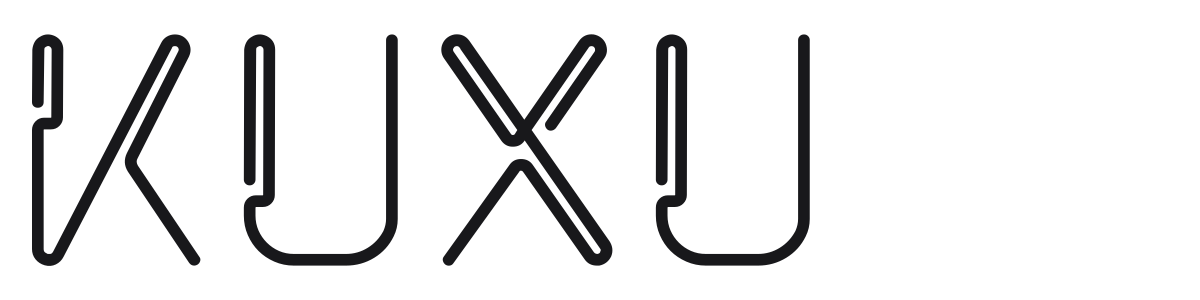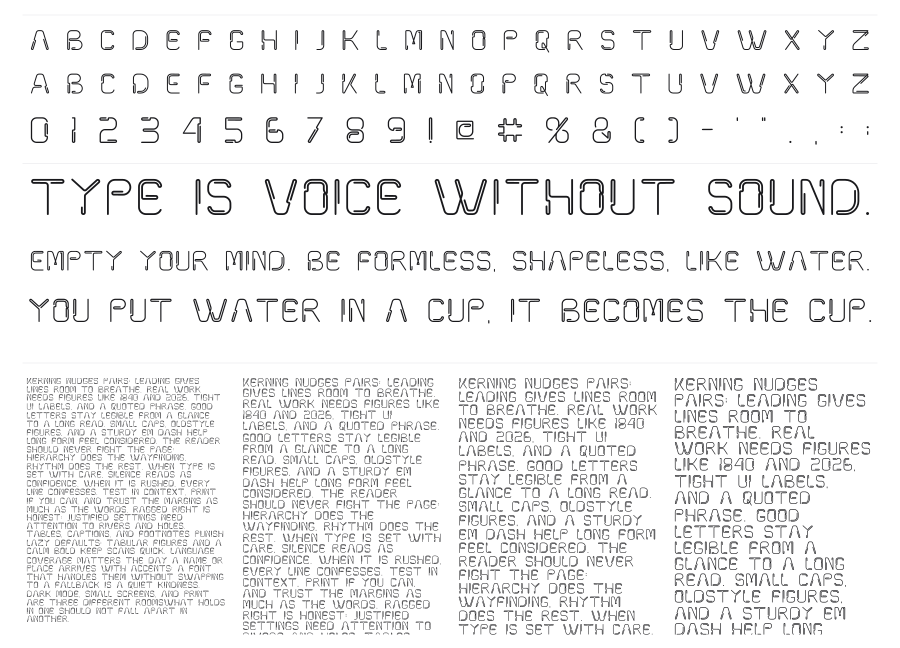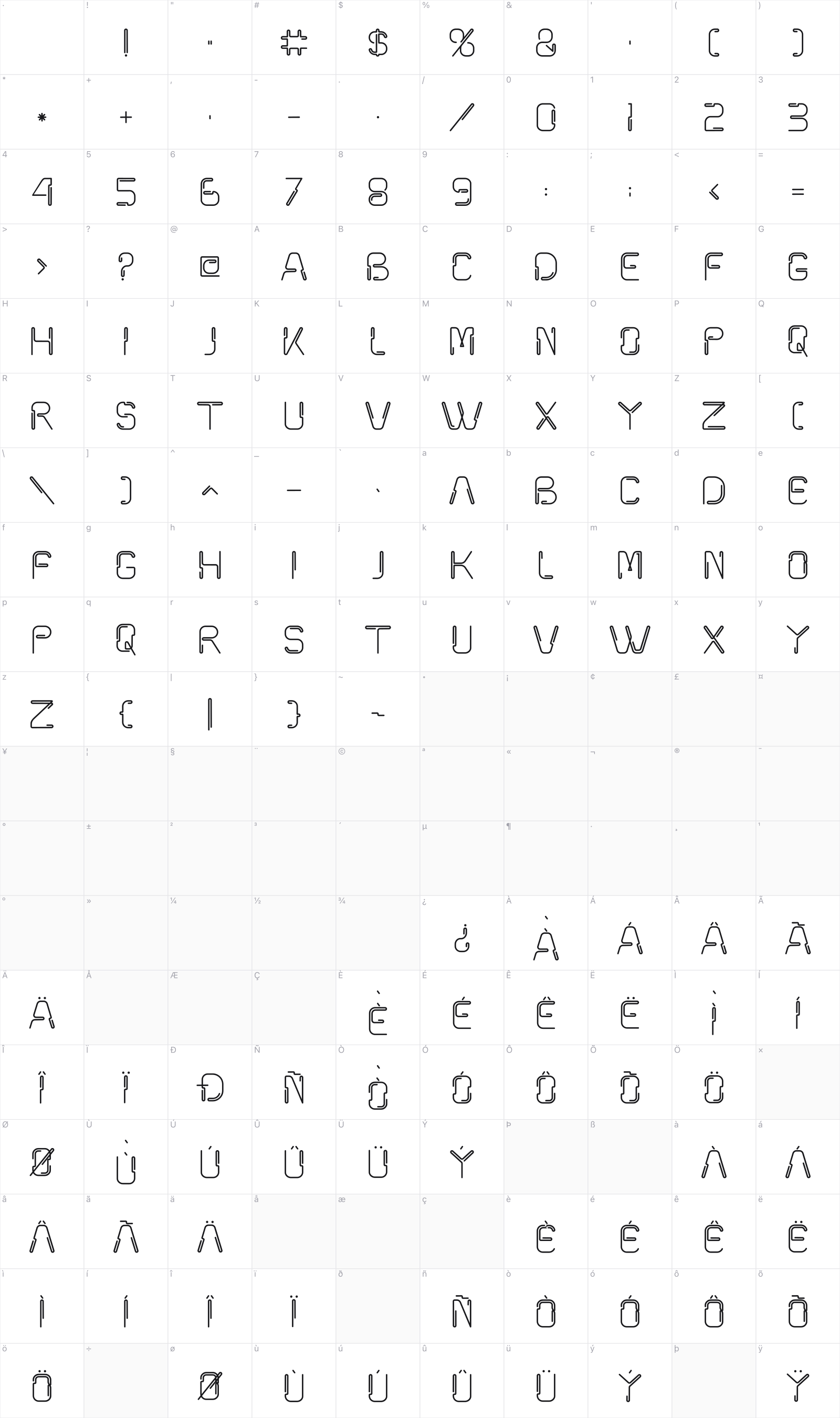
Kuxu
Kuxu is a geometric outline font built from a continuous double-line stroke that gives every character a hollow, tubular quality. Wide square proportions and consistently rounded corners reinforce the sci-fi interface aesthetic. It reads as clean and technical at large sizes, with a retrofuturist edge that suits gaming, music, and tech branding.